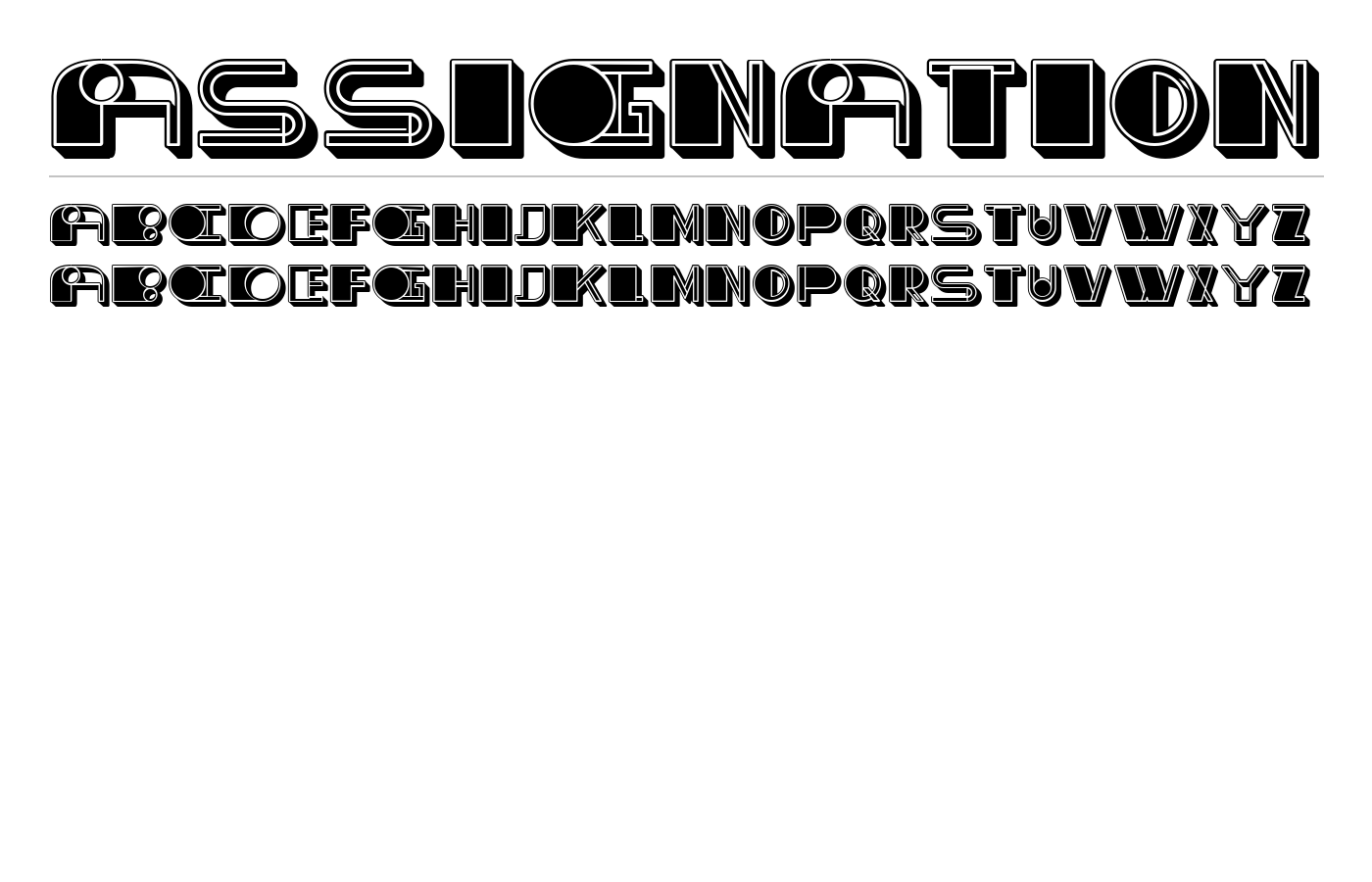
Assignation is a bold, decorative sans serif font characterized by its geometric shapes and high-contrast dual-tone style, creating a three-dimensional, layered effect. This font exudes a retro-futuristic vibe with its unique letterforms and playful yet structured design, making it ideal for eye-catching headlines, posters, and branding projects that seek to convey creativity and boldness. Its strong visual impact works best in display settings where distinctiveness and style are paramount.
Assignation Font
About Assignation Font